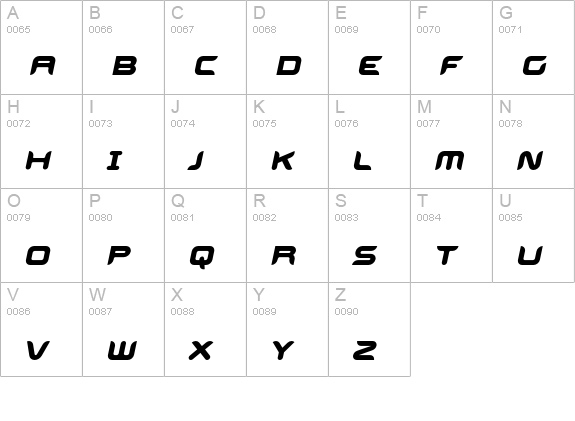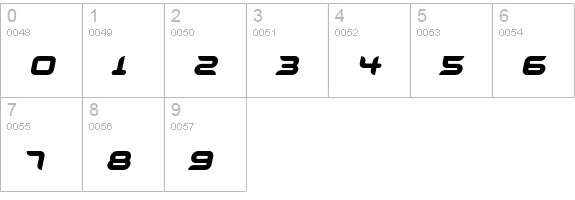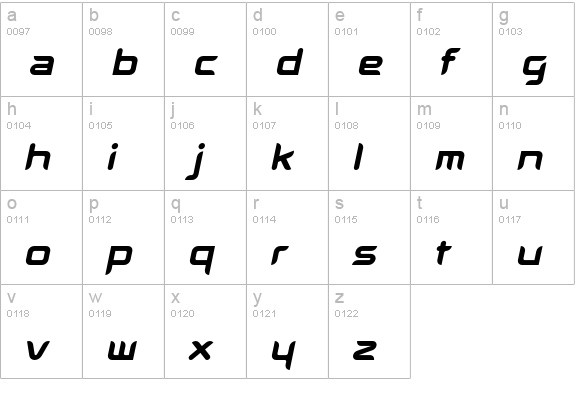
Aura-Oblique Font Details
Aura-Oblique is a distinctive, italic variant in the Aura typeface family \xE2\x80\x94 well suited to design and typography projects.
Aura-Oblique font is a modern and stylish typeface that exudes elegance and sophistication. Its slanted design adds a dynamic and eye-catching appeal to any text it adorns. The sleek lines and unique shapes of Aura-Oblique make it perfect for use in both digital and print designs, from branding and logos to editorial layouts and web graphics. What sets Aura-Oblique font apart is not only its striking aesthetics but also its versatility. Whether you're working on a fashion magazine spread, a luxury brand's packaging, or a sleek website interface, this font will elevate your design with its contemporary vibe. The best part? Aura-Oblique font is available for free download at FontsMarket.com. Now you can effortlessly add a touch of glamour and sophistication to your projects without breaking the bank. Don't miss out on this opportunity to enhance your design work with the captivating Aura-Oblique font.